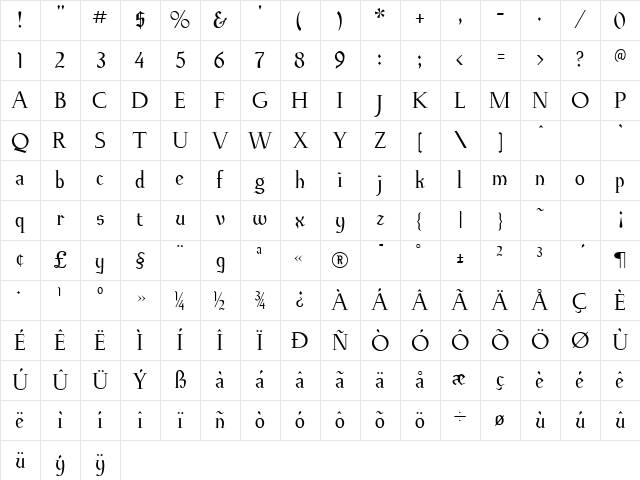
Knaudens Regular Free Font
Knaudens Regular
Knaudens Family
Design Context for Knaudens
Knaudens is a composed and adaptable typeface that performs quietly and consistently across a wide range of design contexts.